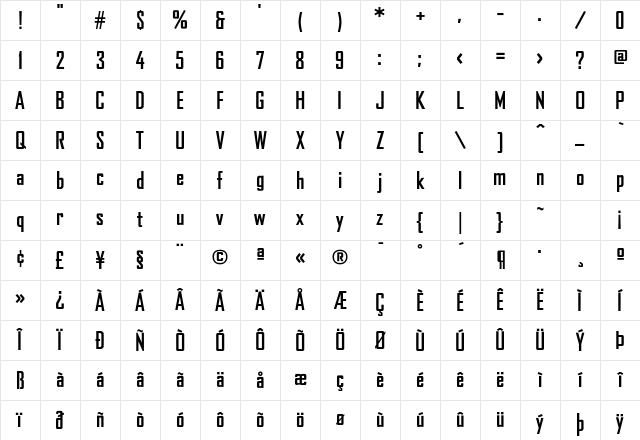
Bureau Agency FB Bold
Foundry: The Font Bureau, Inc
Design Context for Bureau Agency FB
Bureau Agency FB is a composed and adaptable typeface that performs quietly and consistently across a wide range of design contexts. Its bold stroke weight gives it real presence on the page.
Frequently Asked Questions about Bureau Agency FB Bold
Who designed the Bureau Agency FB Bold font?